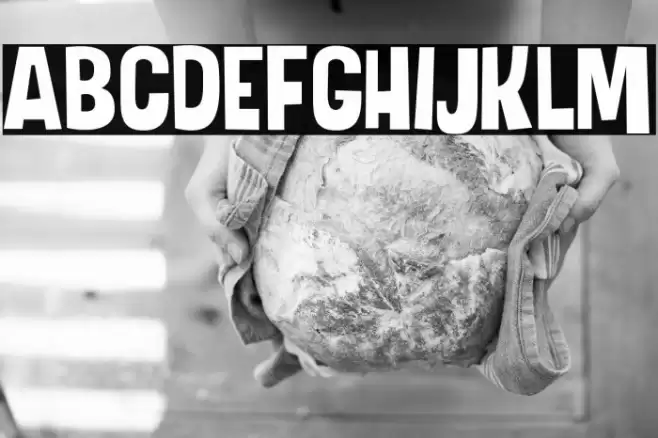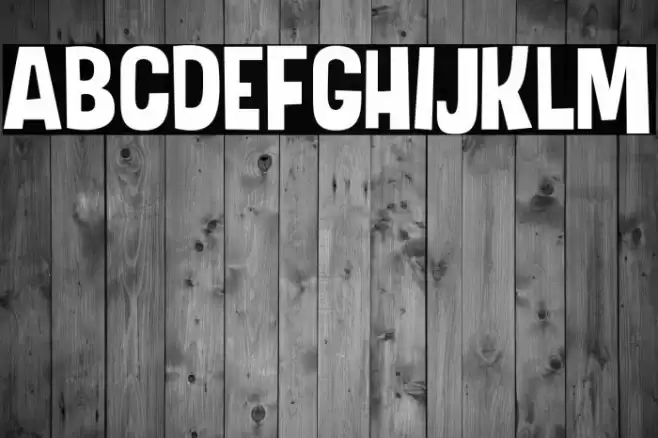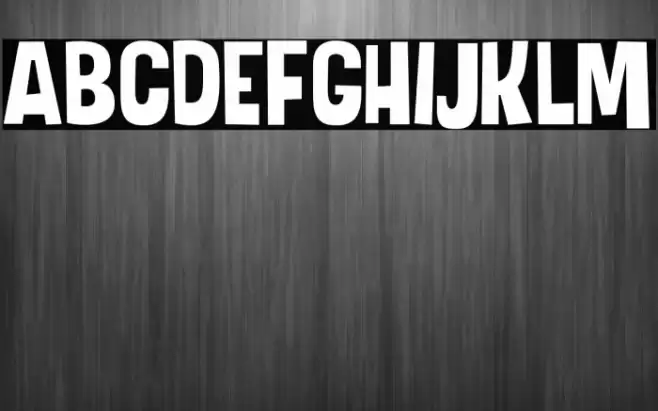
Freaky Freedom Font
Freaky Freedom Description
This font features a bold and striking design with a strong presence. The characters are uppercase only, with a slightly condensed appearance that gives them a compact and powerful look. The strokes are thick and consistent, providing a uniform and cohesive style. The font has a modern and edgy feel, making it suitable for attention-grabbing headlines or impactful statements. The overall design is clean and straightforward, with no additional embellishments or flourishes, emphasizing clarity and readability.
Bold, uppercase font with a modern, condensed style from Fancy fonts.
- Font: Freaky Freedom
- Proposed Projects: Ideal for posters, headlines, branding, and advertising materials where a strong visual impact is desired.
- Width: Condensed